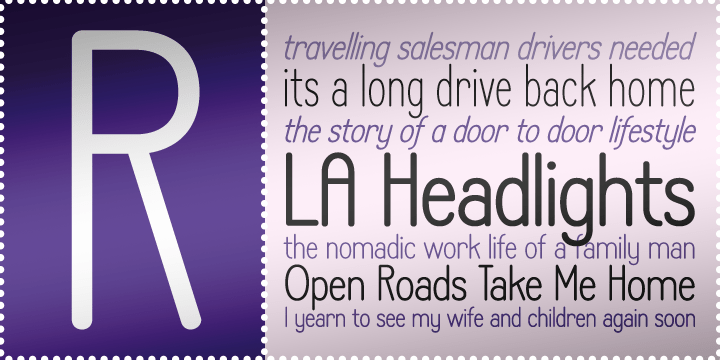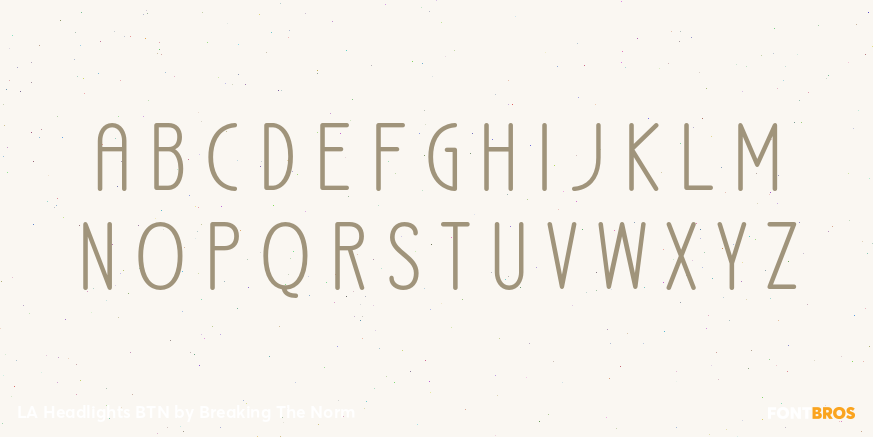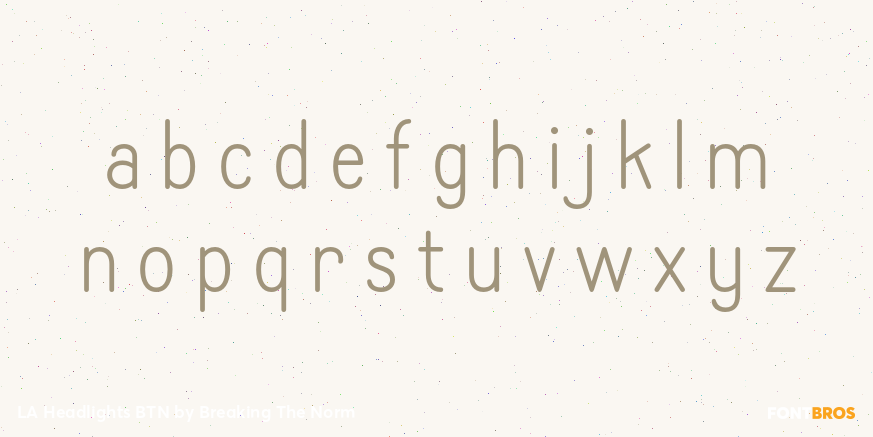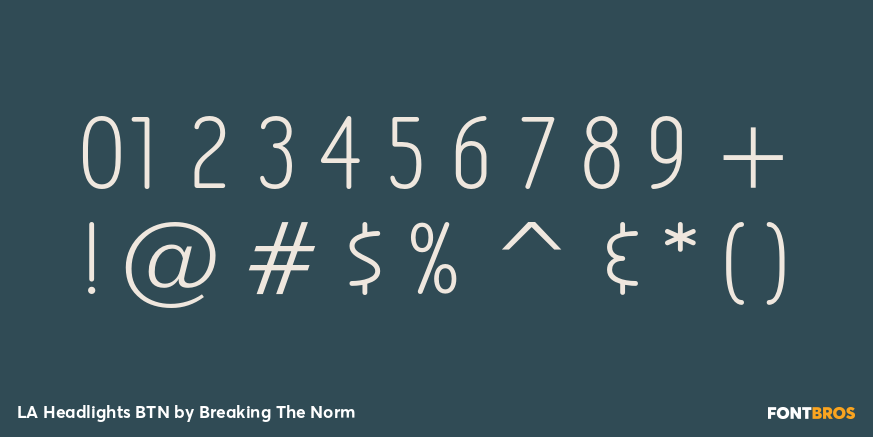
LA Headlights BTN
Font Family by Breaking The Norm
Buy NowLA Headlights is a display typeface that borders on that of a textual typestyle.
It comes complete with an array of variant weights and styles, perfect for lending a lighter-handed feel to your type settings.